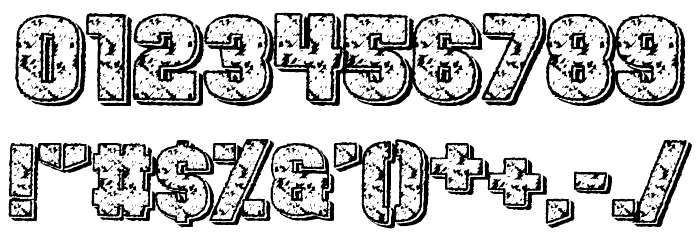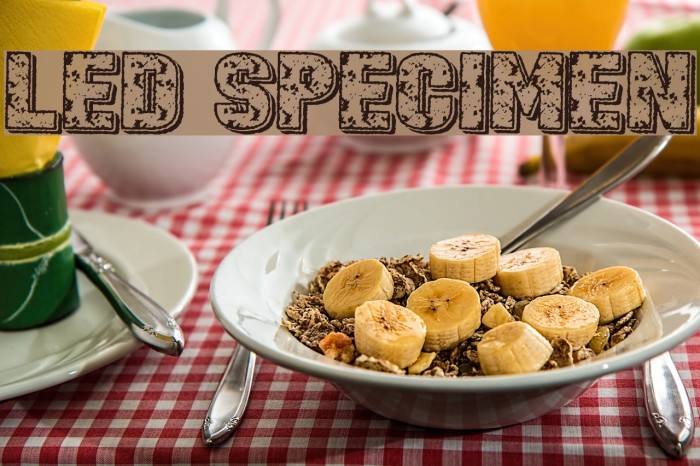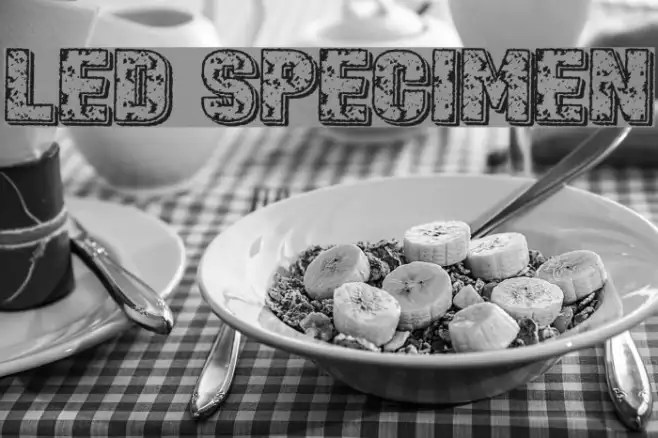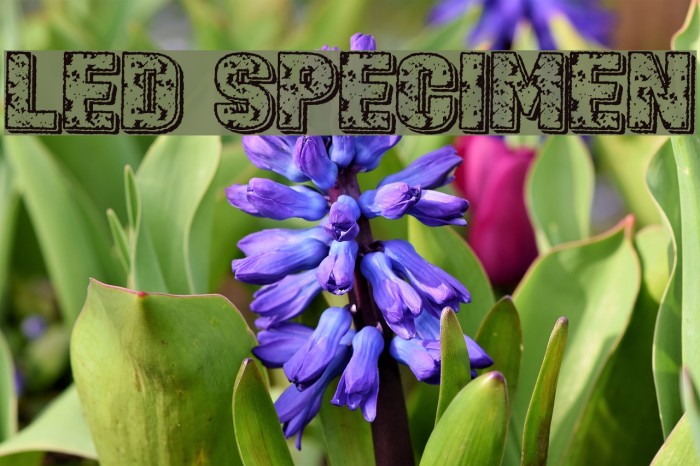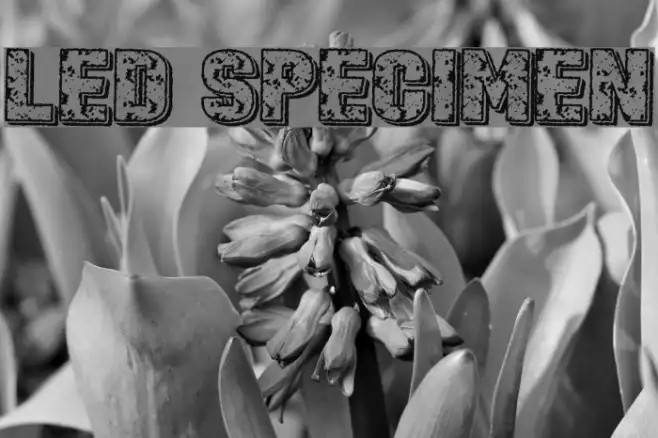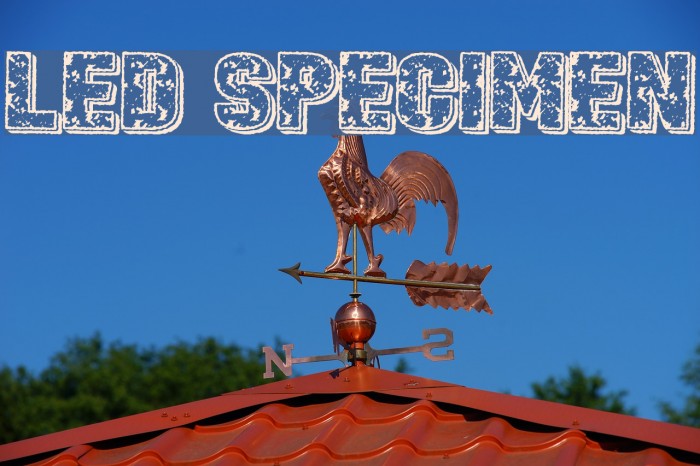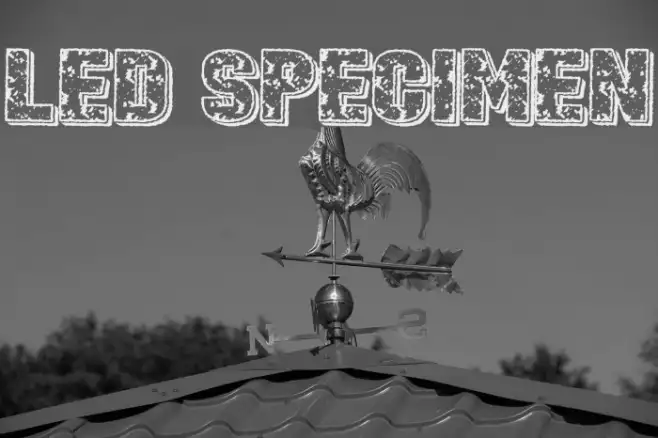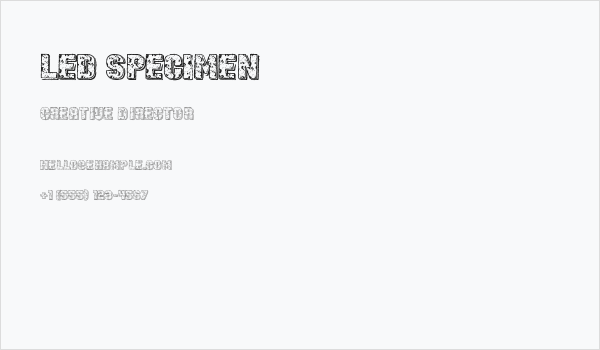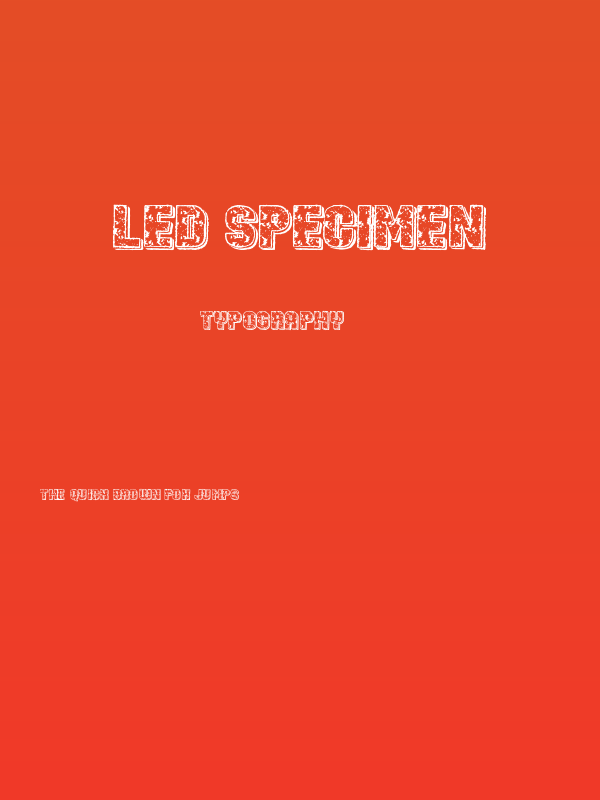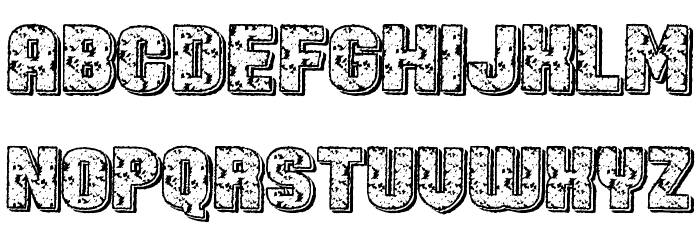
Led Specimen Font
Led Specimen Description
This font features a bold, distressed style with a textured appearance that mimics a worn or vintage look. Each character is filled with a rough, speckled pattern, giving it a rugged and industrial feel. The letters are uppercase and have a blocky, robust structure, making them highly visible and impactful. The numbers and special characters follow the same design, ensuring consistency across all glyphs. This font's unique texture makes it stand out, ideal for projects that require a strong, eye-catching typeface with a retro or grunge aesthetic.
| Proposed Projects | Ideal for posters, album covers, branding, and any design needing a bold, vintage look. |